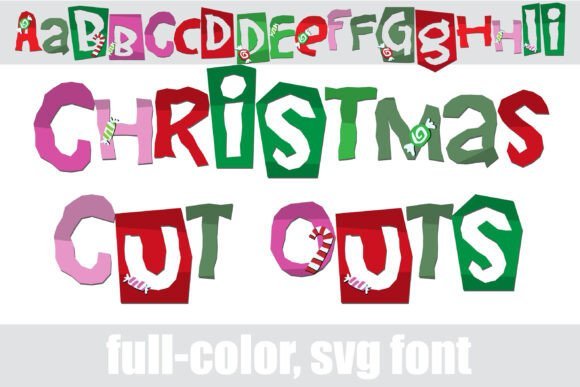
This full-color font features paper cut-outs of crafty lettering in a Christmas color palette.
There is an alt version you can access through your system’s character map that contains additional colors of all the letters This font works best for titles, displays, posters and more.